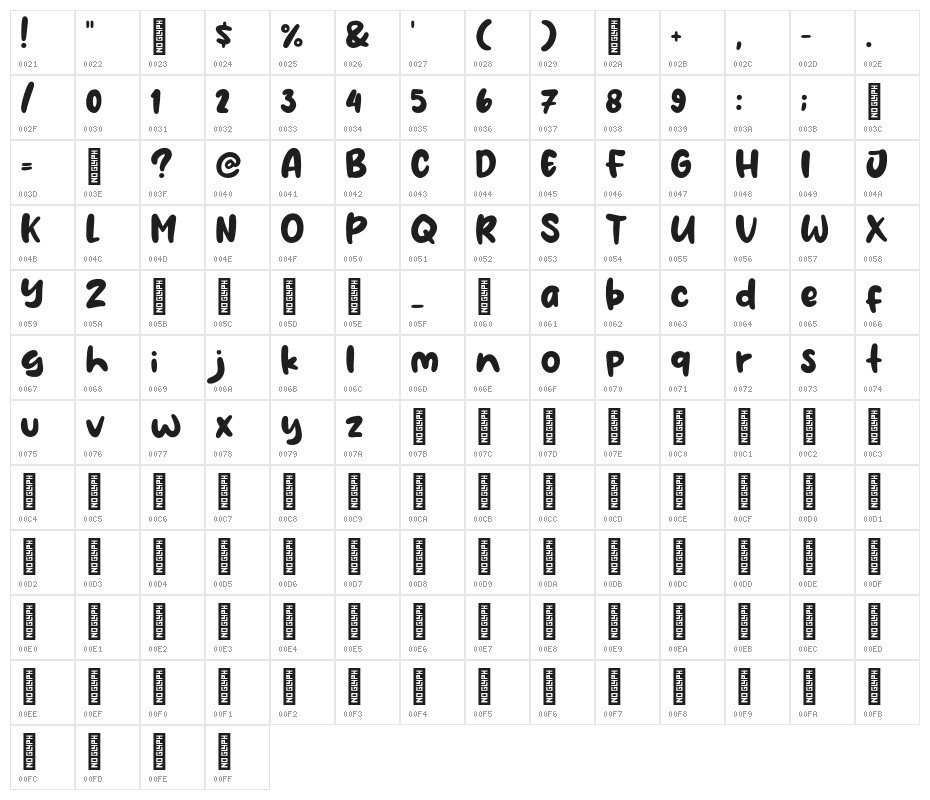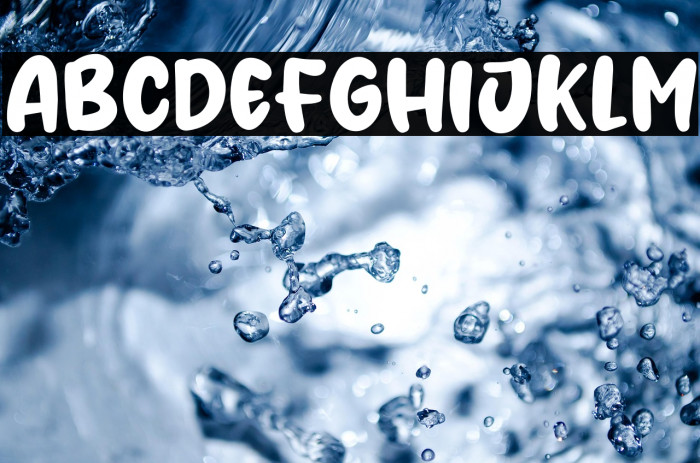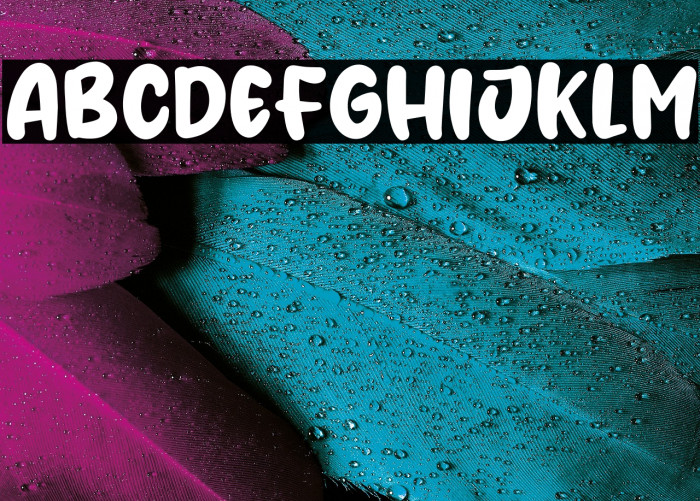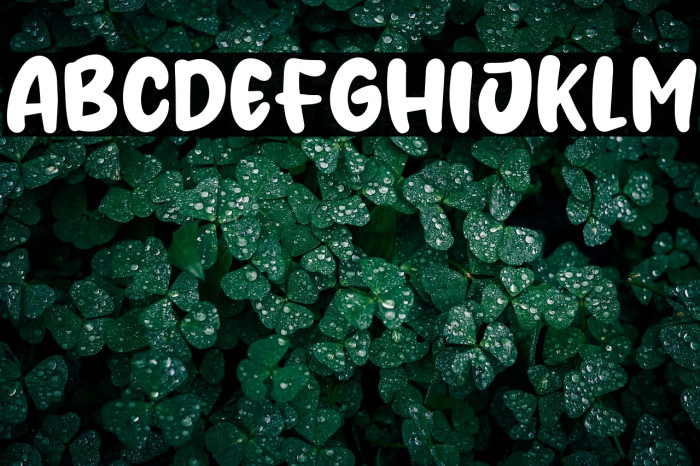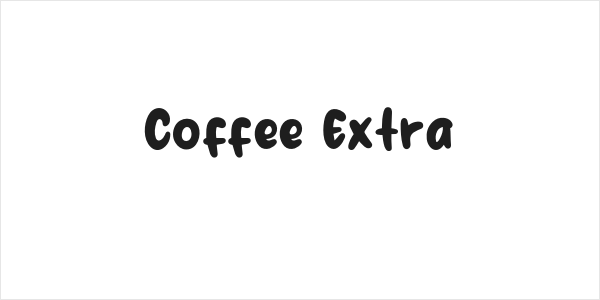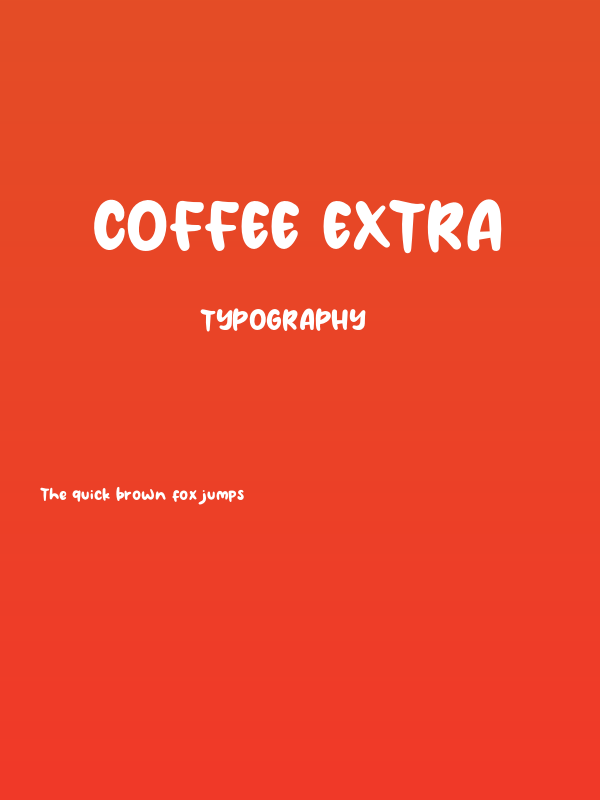
Coffee Extra Font
Coffee Extra Description
This playful and bold font features rounded, thick strokes that give it a friendly and approachable appearance. The characters are slightly irregular, adding a hand-drawn feel that enhances its casual style. The uppercase and lowercase letters maintain a consistent weight, while the numbers and special characters complement the overall design. The font's organic curves and smooth lines make it ideal for projects that require a touch of whimsy and creativity.
| Overall Style | Playful |
| Use Case | Logos, Headlines, Posters |
| Proposed Projects | Great for children's books, playful branding, greeting cards, and casual invitations. |